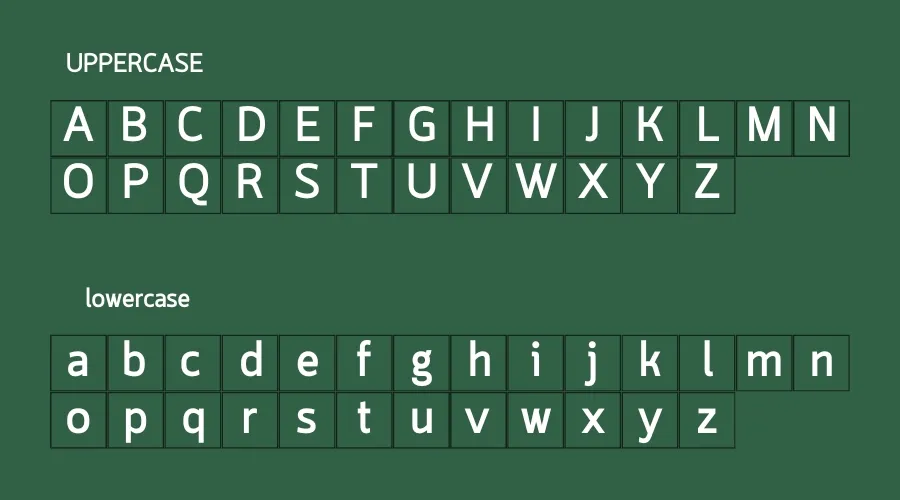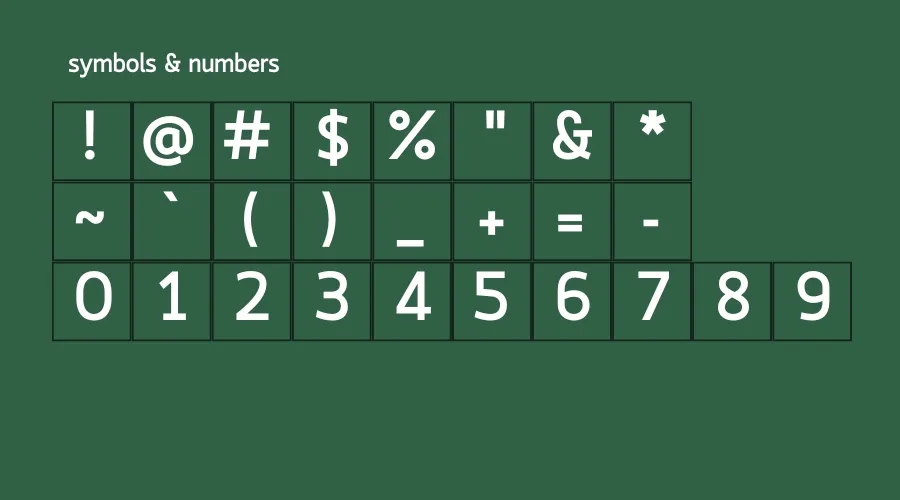
Quark Font
About Quark Font
Quark Font is created by Typomancer and it is the sans serif style this font comprises interesting unique glyphs which make it idealized for demonstration purposes.
This font is a great choice for those who are searching for a classic textual style with a nice appearance. It is extremely simple, easy, and clear, in upper and lower cases.
This typeface has a thin string that gives a sleek appearance to the text style. The typeface is best for body content, captions, and subtitles. It can be the best choice for your next project.
For branding projects, home decor, and packaging the typeface is suitable for all innovative designs. This typeface also has a generator tool that can be used to create unique and attractive designs.
The typeface can also be used to create a short design. Additionally, it is suitable for designing posters and placards. Many languages are supported, starting and ending letters are included, and alternative letters can be used. This font is also paired with the weezer font.
By using this typeface posters and placards can be designed attractively.  The typeface gives the design a unique look, so it would be an ideal choice for any task. You can use this typeface to create invitation cards, banners, book covers, game titles, and much more.
Name Quark Font
Designer Robin Nicholas
Style Typomancer
• Quark Regular
• Quark Light
• Quark Bold
What kind of Quark Font?
Quark Typeface is a sans serif textual style with a sleek body, and narrowly adjusted corners, and comprises interesting unique glyphs which make it ideal for demonstration purposes.
Where can I use Quark Font?
Due to its sharp and clean highlights, this typeface can be used for making several tasks like designing magazines, banners, advertisements, and so on.
Who created Quark Font?
Quark Font is created by Typomancer and it is the sans serif style it could be an incredible choice to create unique designs.